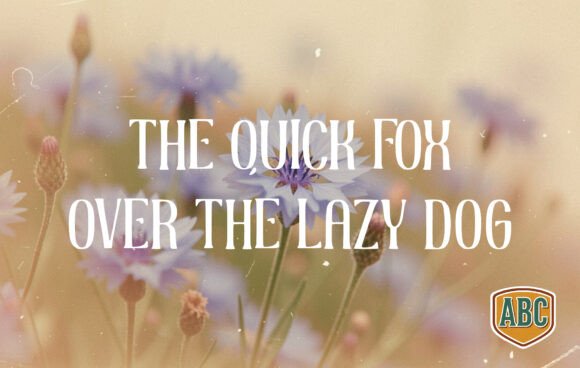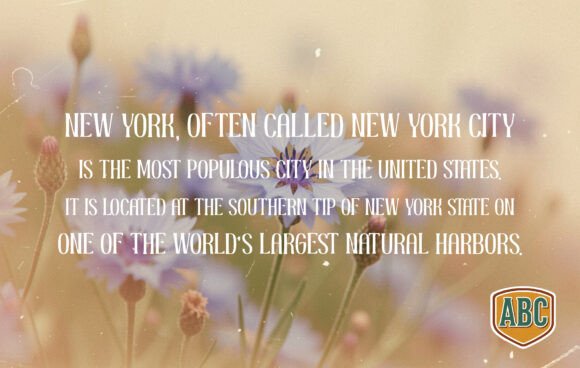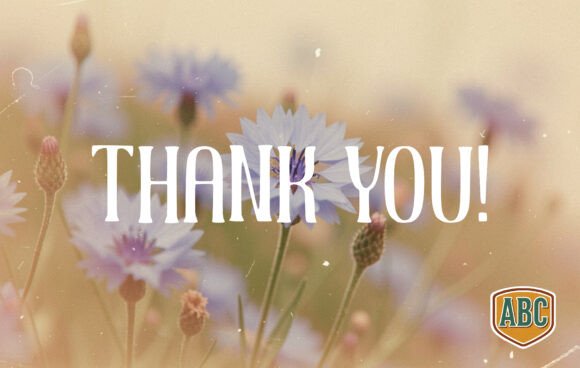
Corn Flower Font: Elevate Your Design with Vintage Strength and Modern Sophistication
In the world of typography, few fonts manage to strike a perfect balance between vintage strength and modern sophistication. Cornflower, a tall, condensed serif font, is one such typeface that effortlessly combines the best of both worlds. Its high-contrast strokes and slightly rounded terminals give it a distinctive “soft-pressed” look, reminiscent of classic botanical prints and retro editorial layouts.
The Characteristics of Cornflower Font
Cornflower’s unique characteristics make it an ideal choice for designers and crafters looking to add a touch of elegance and sophistication to their work. Some of its key features include:
- Tall and Condensed: Cornflower’s tall and condensed structure makes it perfect for headlines, magazine covers, and luxury branding, where space is limited but impact is crucial.
- High-Contrast Strokes: The font’s high-contrast strokes add a level of refinement and luxury, giving it a distinctive look that sets it apart from other serif fonts.
- Slightly Rounded Terminals: The slightly rounded terminals of Cornflower give it a soft, approachable feel, preventing it from looking too harsh or traditional.
Perfect for Headlines, Magazine Covers, and Luxury Branding
Cornflower is a powerhouse font that excels in applications where a strong, yet elegant presence is required. Its sturdy yet graceful design makes it perfect for:
- Headlines: Cornflower’s tall and condensed structure, combined with its high-contrast strokes, makes it ideal for grabbing attention and making a statement.
- Magazine Covers: The font’s classic, sophisticated look is reminiscent of traditional magazine covers, making it a great choice for designers looking to create a vintage or retro-inspired look.
- Luxury Branding: Cornflower’s luxurious feel and high-end aesthetic make it perfect for luxury brands looking to convey a sense of sophistication and elegance.
Why Choose Cornflower Font?
If you’re looking for a typeface that feels established, nostalgic, and authoritative all at once, Cornflower is your go-to font. Here are just a few reasons why:
- Unique Look: Cornflower’s distinctive “soft-pressed” look sets it apart from other serif fonts, giving your design a unique and eye-catching aesthetic.
- Versatility: The font’s versatility makes it suitable for a wide range of applications, from headlines and magazine covers to luxury branding and packaging.
- Elegance: Cornflower’s elegant design and sophisticated feel make it perfect for designers and crafters looking to add a touch of luxury to their work.
Tips for Using Cornflower Font
To get the most out of Cornflower font, here are a few tips to keep in mind:
- Use it as a Headline Font: Cornflower’s tall and condensed structure makes it perfect for headlines, where it can grab attention and make a statement.
- Pair it with a Sans-Serif Font: Pairing Cornflower with a sans-serif font can create a nice contrast and add visual interest to your design.
- Experiment with Different Sizes: Cornflower’s versatility makes it suitable for a wide range of sizes, from large headlines to smaller body text.
In conclusion, Cornflower font is a powerful and elegant typeface that offers a unique blend of vintage strength and modern sophistication. Its high-contrast strokes, slightly rounded terminals, and tall, condensed structure make it perfect for headlines, magazine covers, and luxury branding. Whether you’re a designer or crafter, Cornflower is a great choice for anyone looking to add a touch of elegance and sophistication to their work.